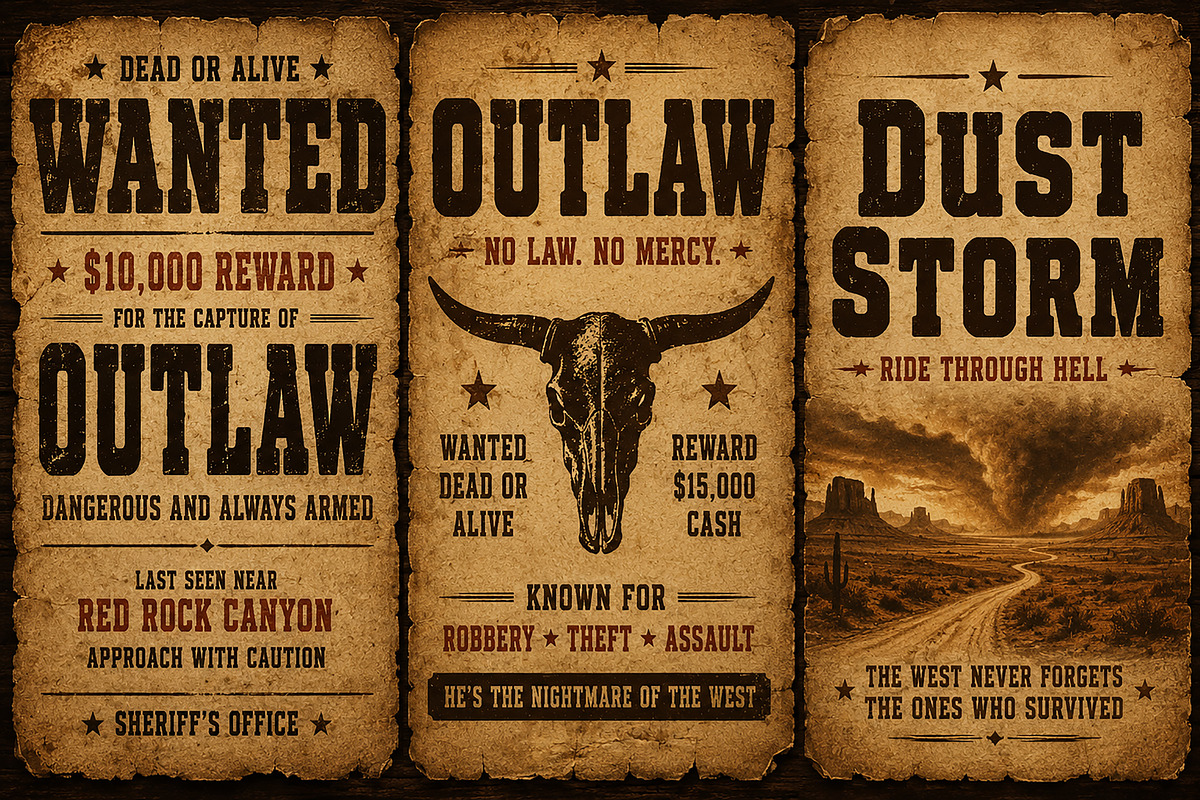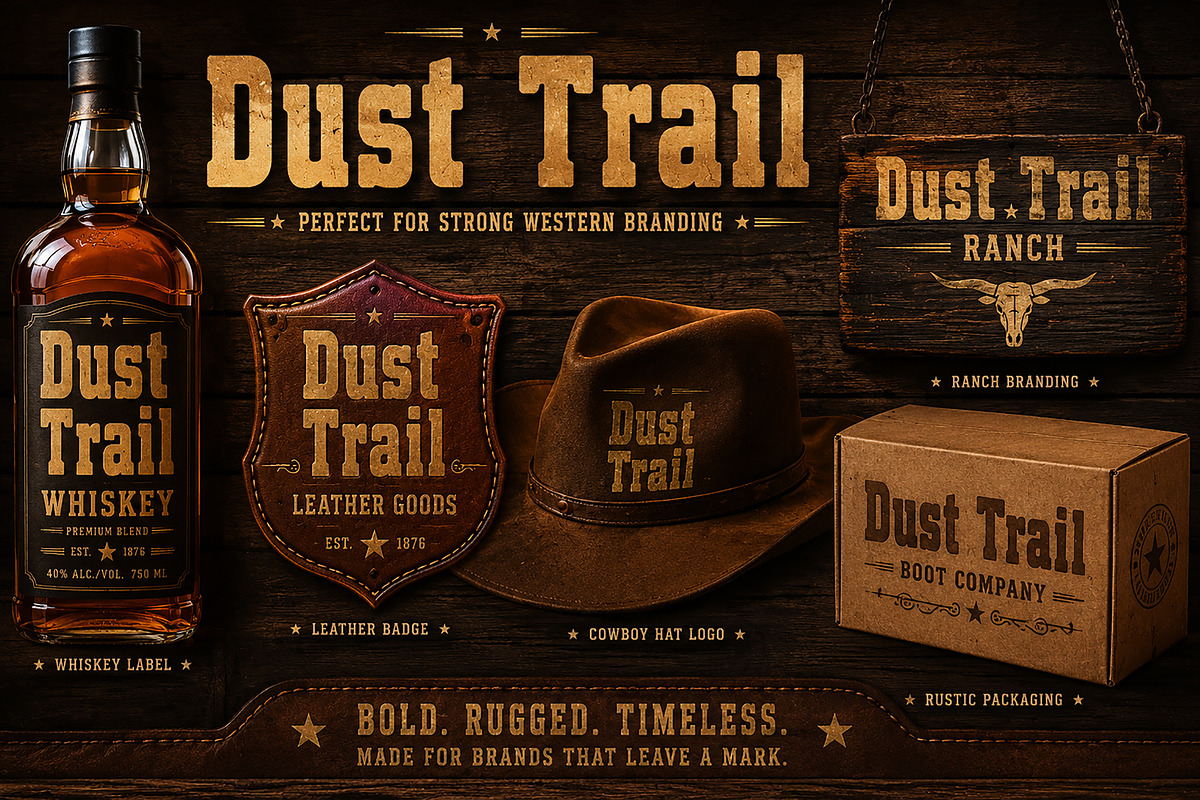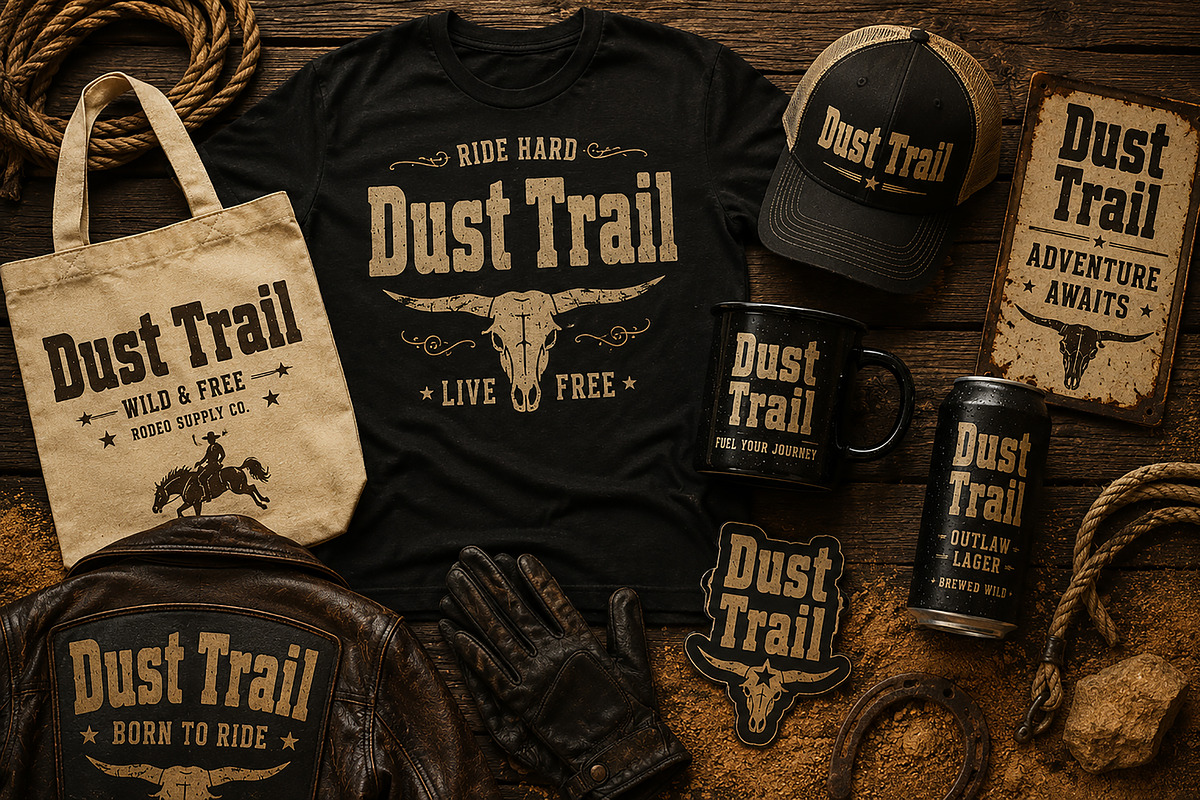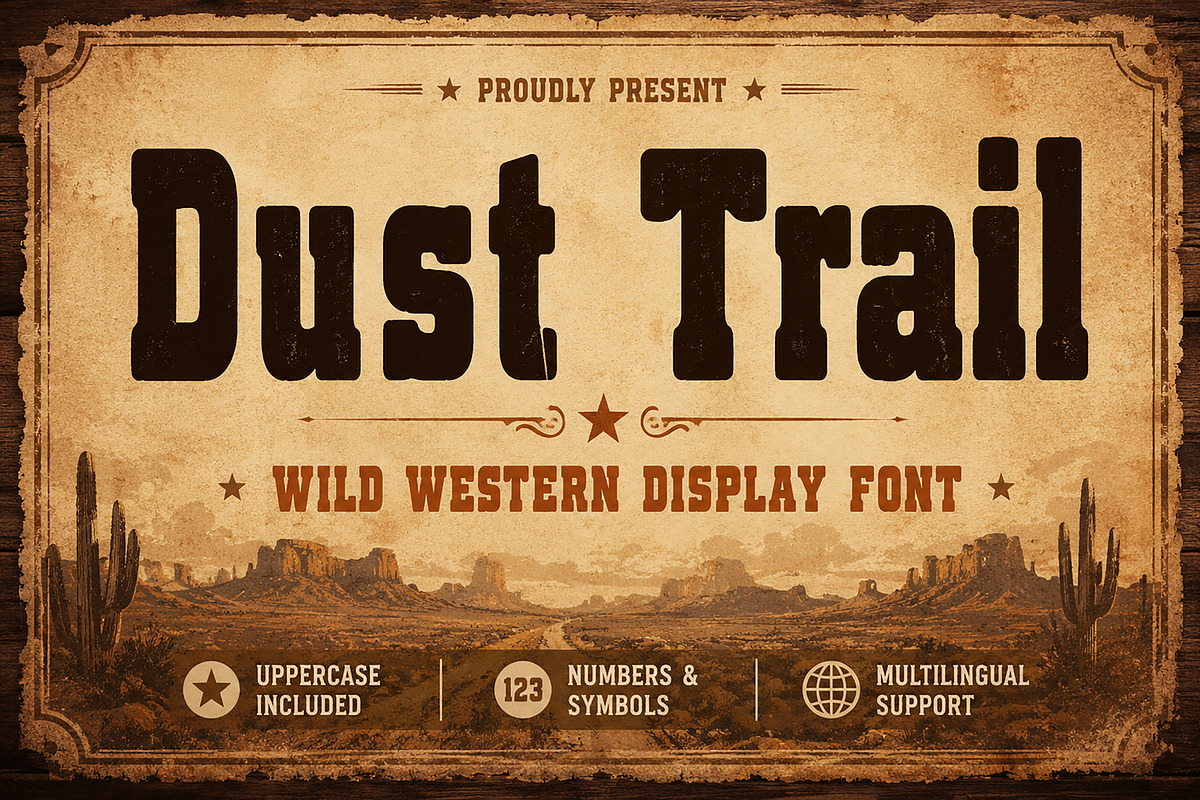
Dust Trail
Dust Trail is a bold wild western display font inspired by vintage cowboy posters, saloon signs, desert trails, and old Americana typography. With its rugged letterforms, strong slab-style structure, and distressed rustic texture, this font captures the authentic spirit of the Wild West.
Perfect for western branding, vintage logos, cowboy-themed posters, packaging, apparel, whiskey labels, farm branding, rodeo designs, and rustic merchandise. Dust Trail delivers a powerful old-west character that makes your designs feel bold, fearless, and timeless.
Whether you're creating retro western branding, country event posters, adventure-themed graphics, or rustic product packaging, Dust Trail brings the true frontier vibe into your creative work.
Western Logos, Cowboy Posters, Saloon Branding, Whiskey Labels, Farm Packaging, Rodeo Events, Vintage Signage, Rustic Merchandise, Country Music Artwork, Adventure Branding, and Retro Editorial Designs.